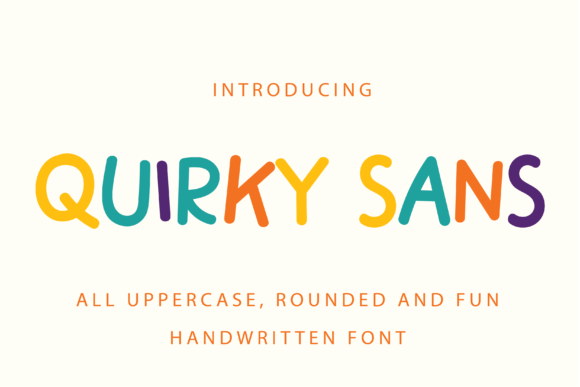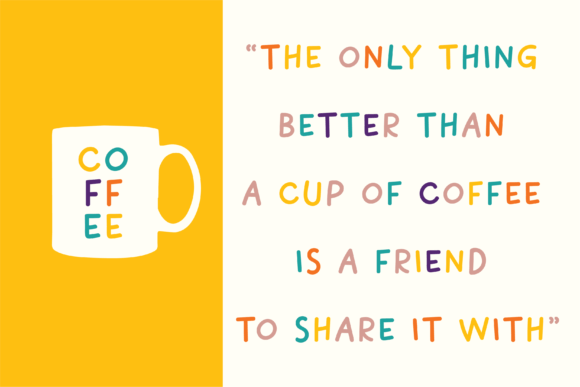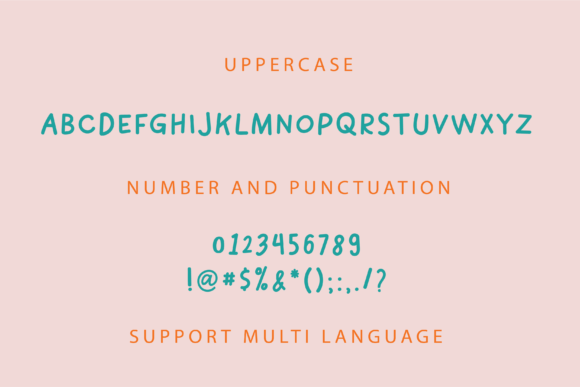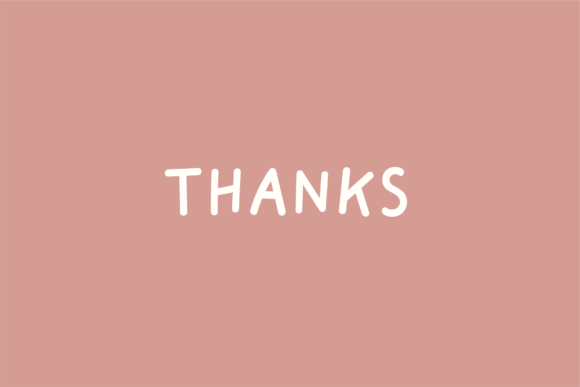
Quirky Sans Font
About Quirky Sans Font
Quirky Sans font is a handwritten typeface with a playful and fun personality. This sans serif font stands out due to its clean and rounded edges, giving it a friendly and approachable look. Designed with handmade charm, the Quirky Sans font adds warmth and whimsy to your creative projects, making it perfect for quotes, children’s book covers, song lyrics, and more.
Playful and Friendly Design of Quirky Sans Font
The Quirky Sans font features smooth, rounded letterforms that combine modern simplicity with a handcrafted feel. Its approachable style makes it ideal for designs that want to convey joy and personality without sacrificing clarity.
Ideal Uses for Quirky Sans Font
This versatile Quirky Sans font works well for:
• Inspirational quotes and typography
• Children’s book covers and illustrations
• Song lyrics and creative text designs
• Friendly branding and packaging
• Social media graphics and fun digital content
Quirky Sans font adds a lively and whimsical touch to a wide range of projects.
Why Choose Quirky Sans Font?
Designers choose the Quirky Sans font for its:
• Playful handwritten sans serif style
• Clean, rounded, and easy-to-read letterforms
• Versatility across print and digital platforms
These qualities make Quirky Sans font a practical and charming choice.
Add Whimsy and Personality to Your Designs
Typography defines the mood of your project. The Quirky Sans font brings joy and friendliness, helping your designs engage audiences with a fresh, handmade vibe. Whether for children’s content, quotes, or casual branding, this font elevates your creativity.
Final Thoughts on Quirky Sans Font
In summary, the Quirky Sans font is a playful and approachable handwritten sans serif perfect for designers wanting a fun and friendly style. Add Quirky Sans font to your collection to create memorable and charming designs.